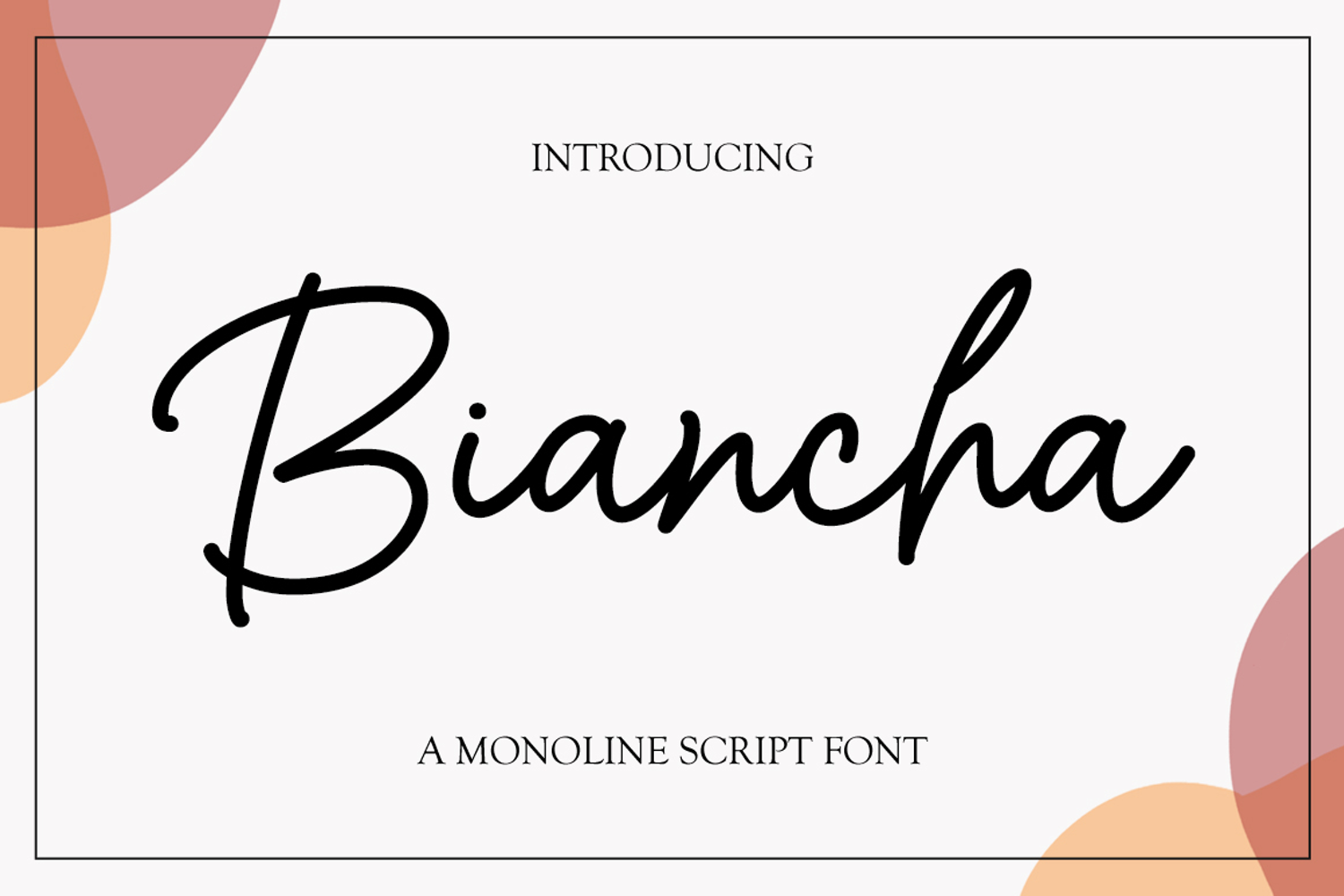
Biancha
Biancha is a beautiful, well-balanced, and new-style script font. It is defined by smooth curves and is perfect for fashion branding or editorial designs.